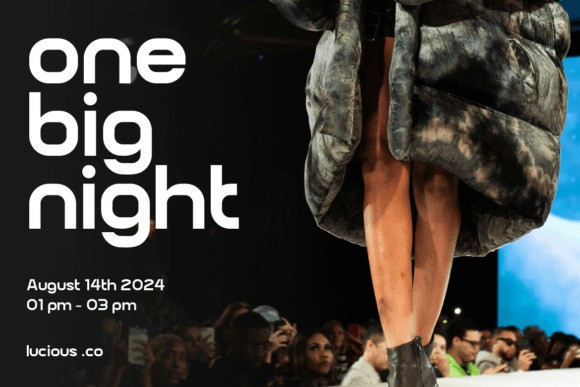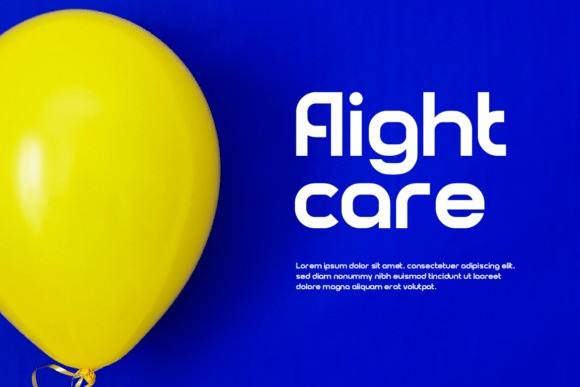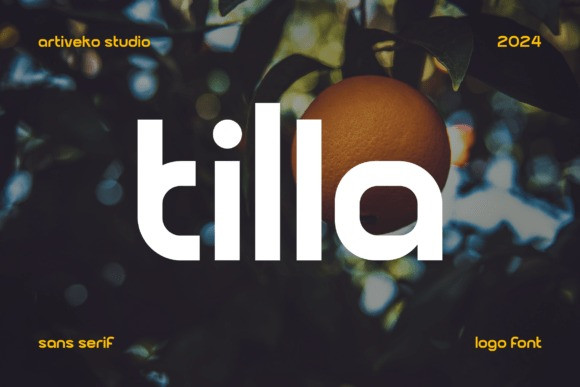
Tilla Font
Tilla Font is a contemporary sans serif font designed by Iwan Alwan, featuring a distinctive style with playful variations between uppercase and lowercase letters. It supports multiple languages and includes ligatures, making it versatile for various design needs. Ideal for magazines, business cards, posters, and more, Tilla adds a modern, creative touch to any project.
This fonts are great for product logo,wedding card logo, clothing brand logo, Vintage design and much more.